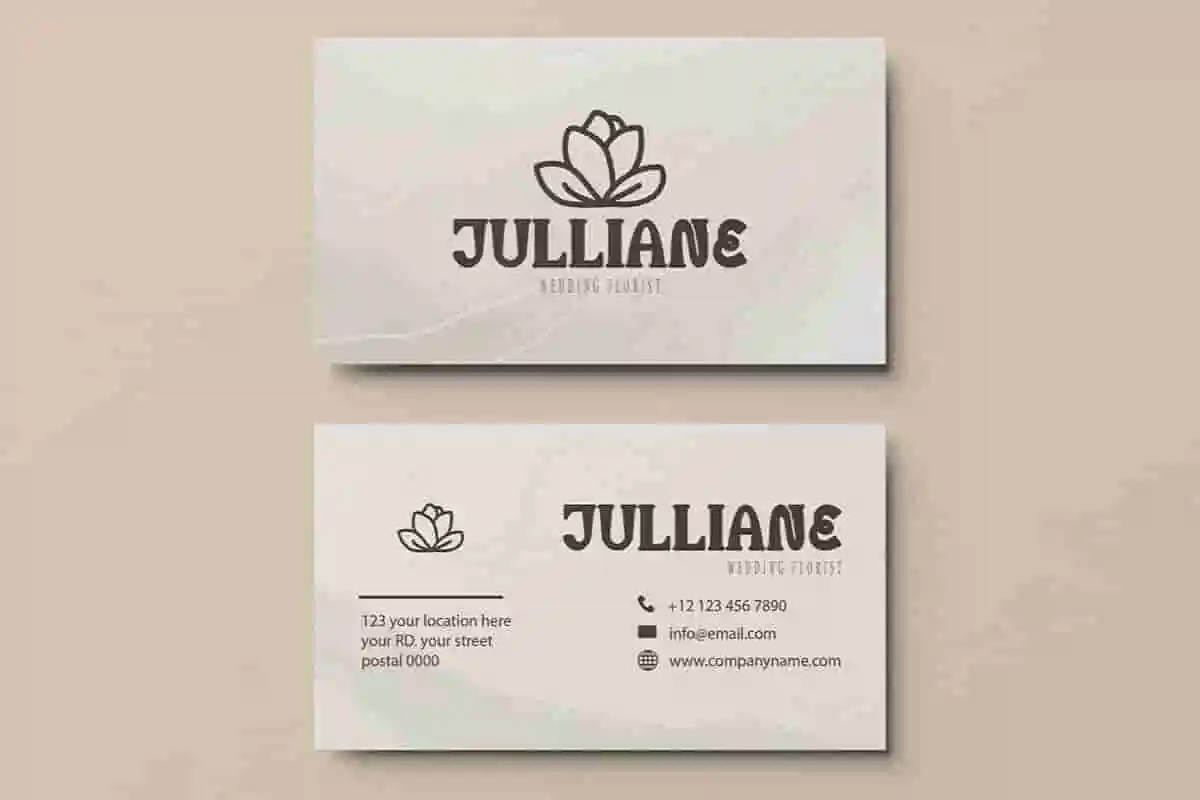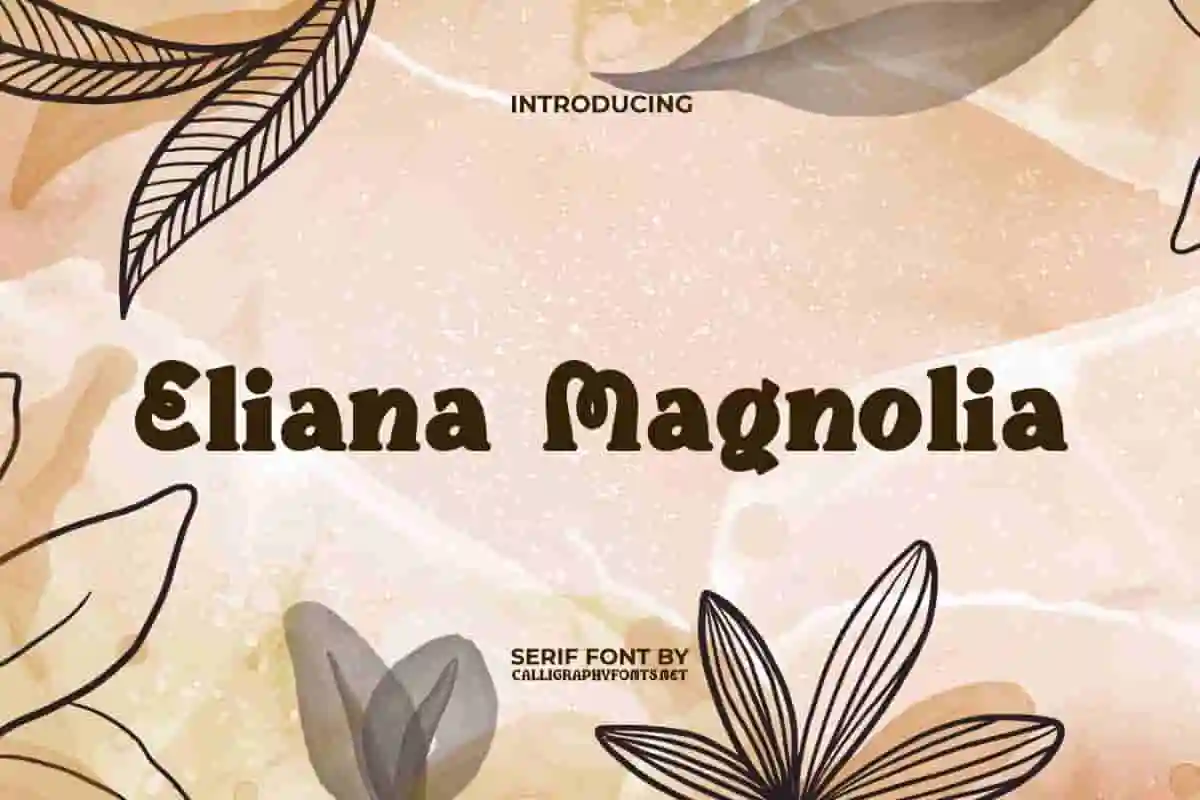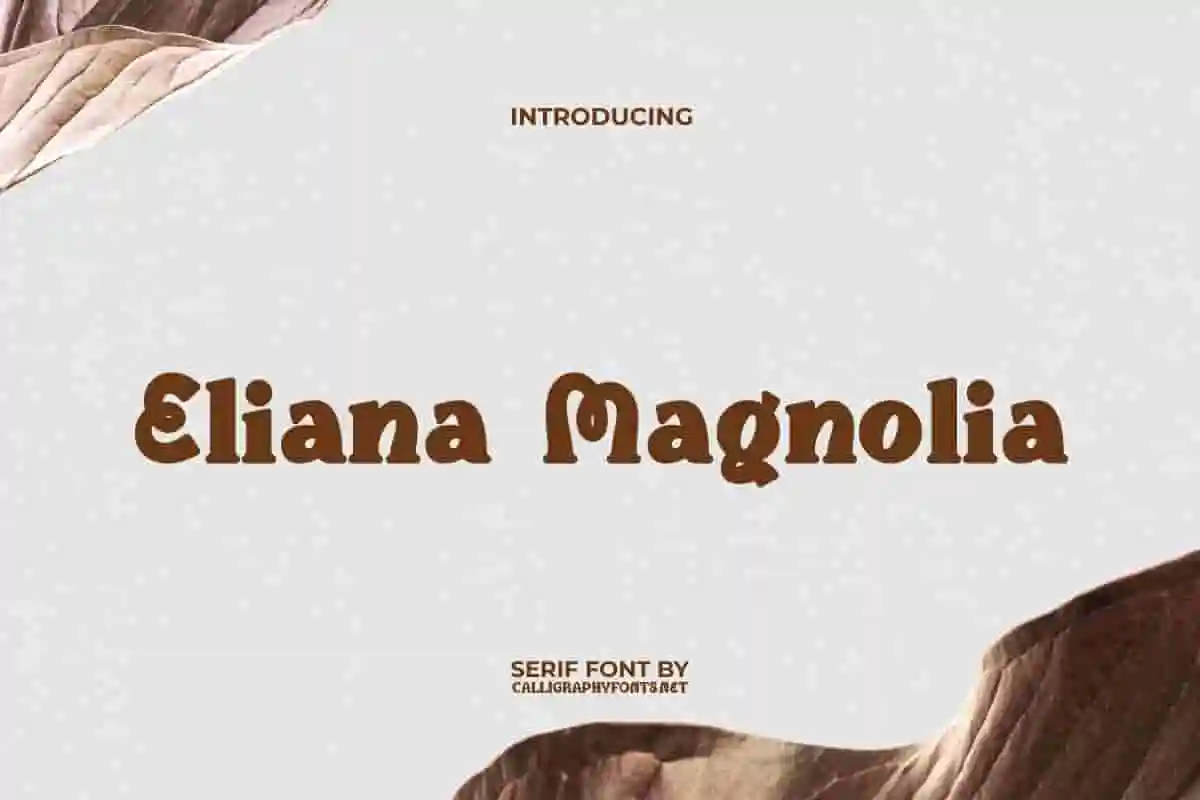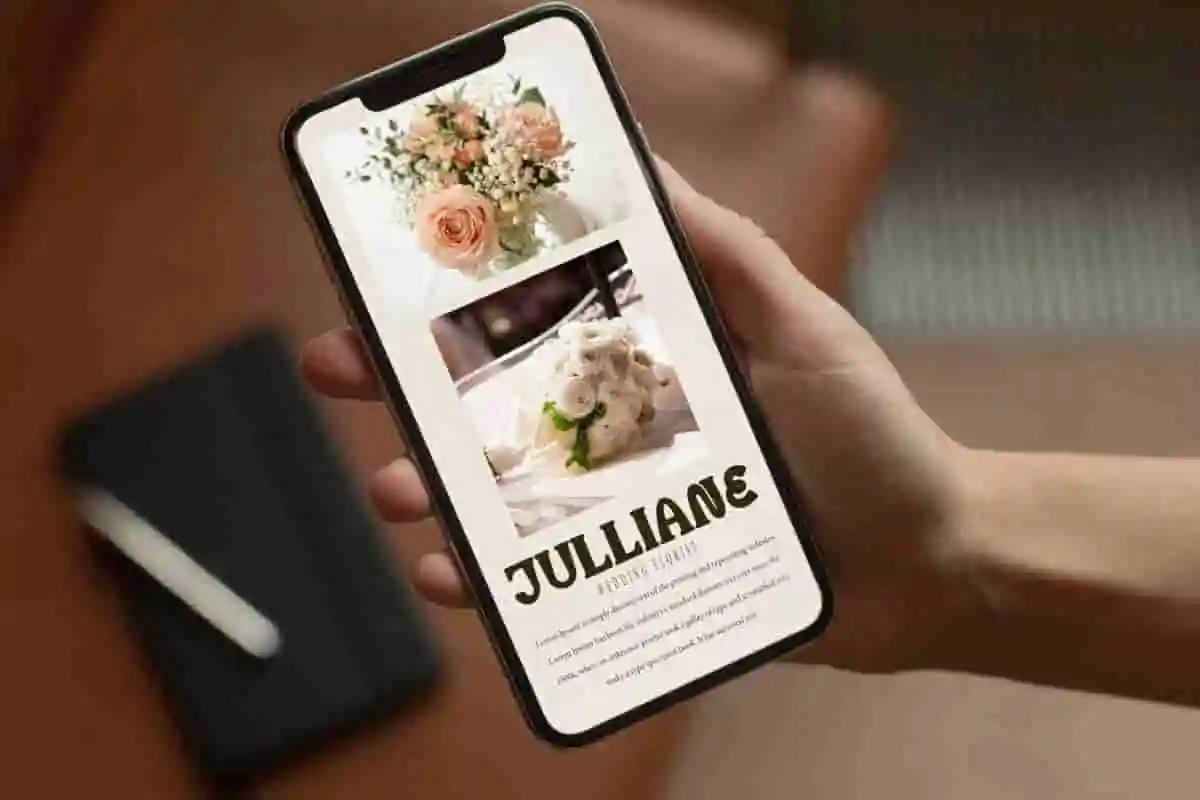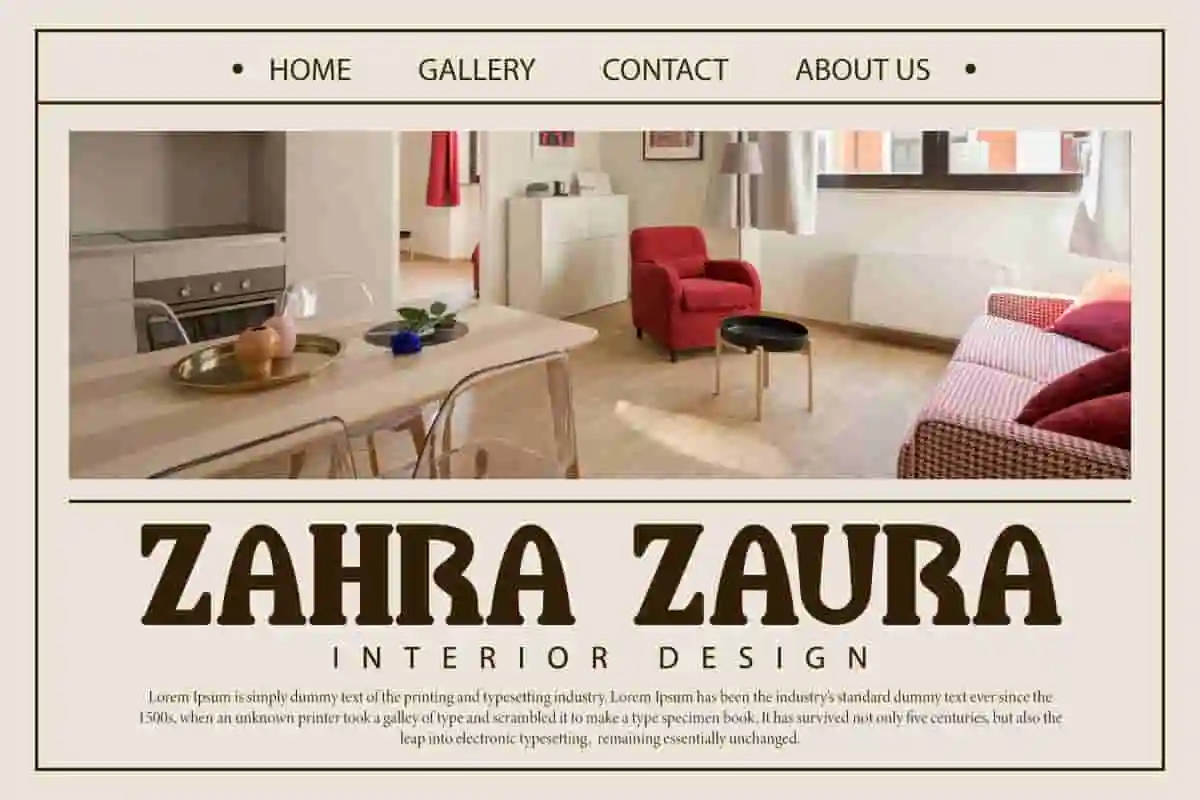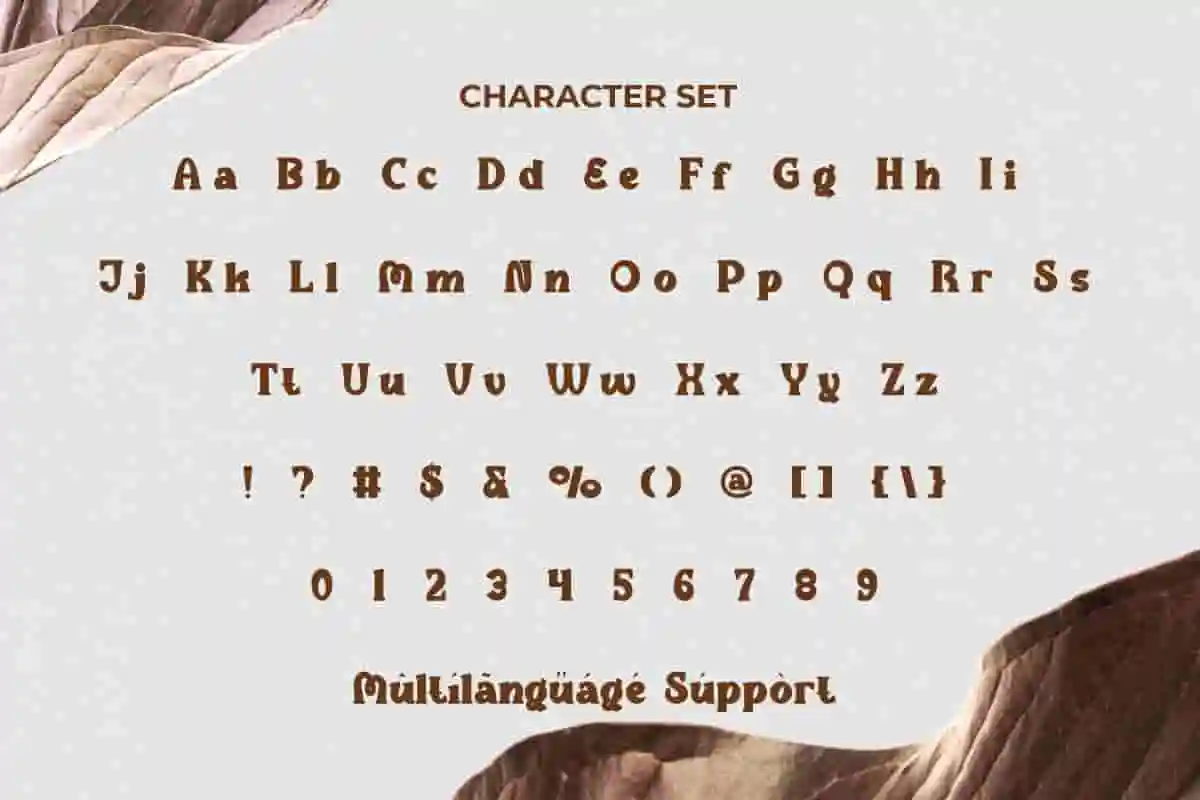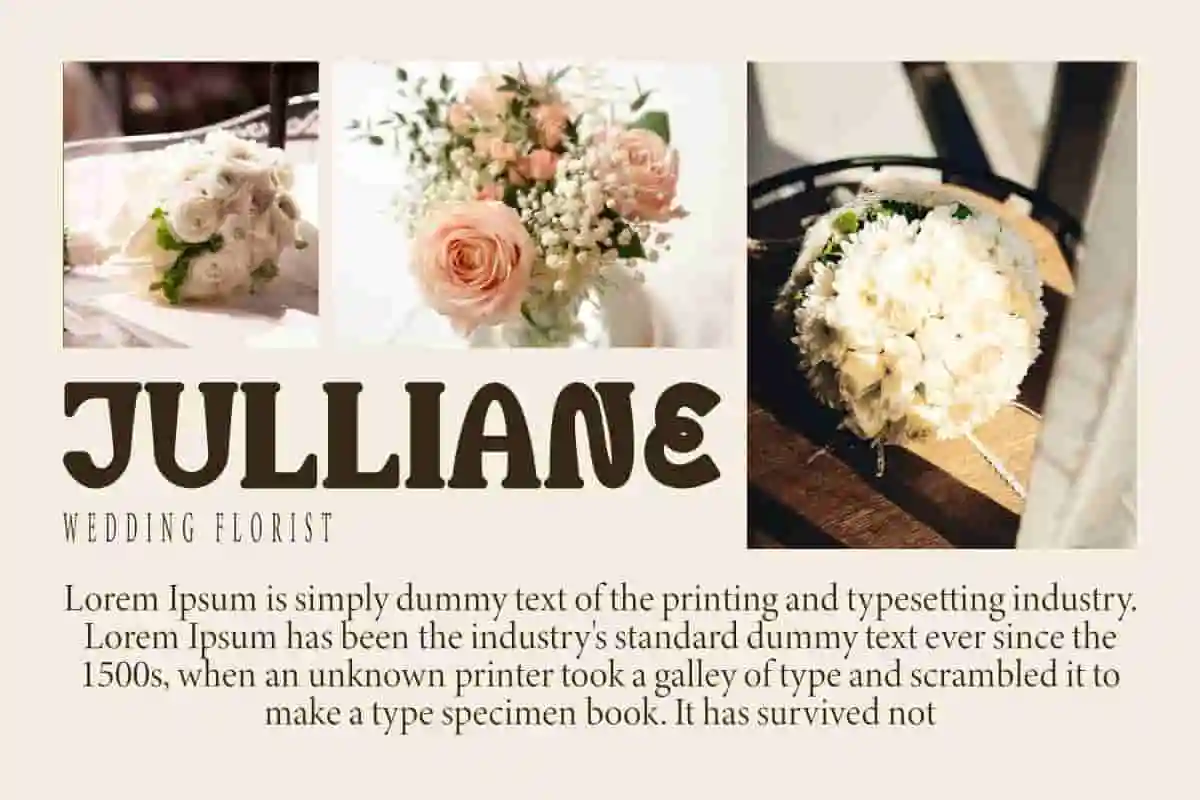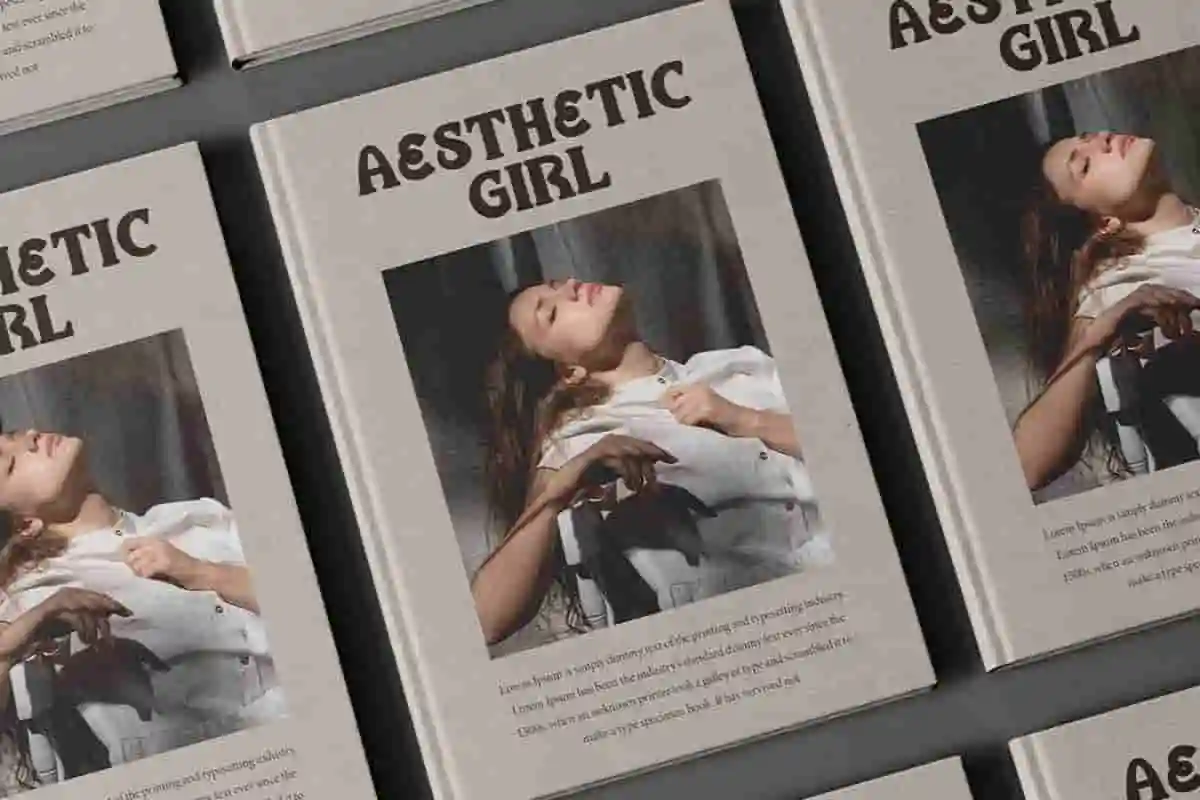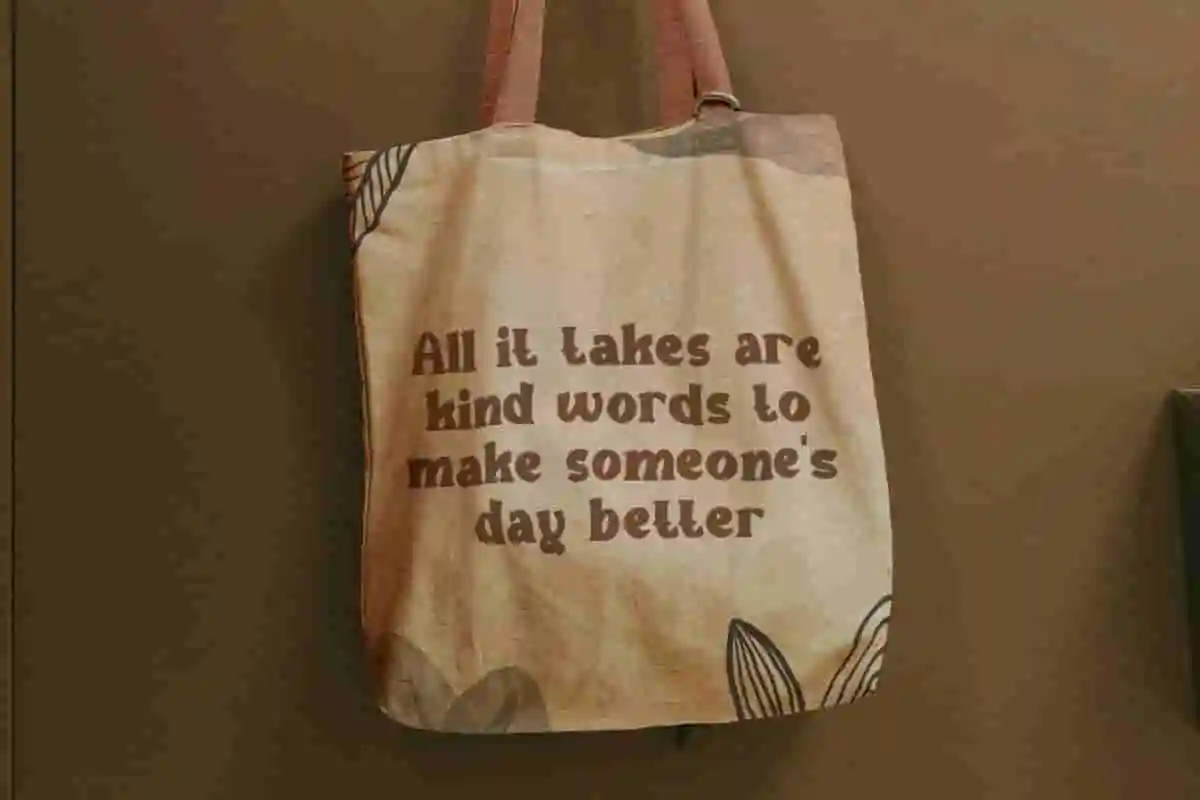
Eliana Magnolia Display Font
Eliana Magnolia Font is an elegant and modern retro serif font. It would be perfect for use in advertising, branding, florist, photography, website, wedding, title, and more!
Eliana Magnolia Font is a classic serif font as pretty as flowers. Made in an elegant retro feel, it produces the right thickness with curves as a distinctive and concise appeal in each character. Use this font for blogs, business card, card design, cover book, editorial, heading, headline, labels, logos, mockup, poster, printing, screen printing bag, stickers, template, title, website, etc.
Discover timeless beauty with Eliana Magnolia Display Font, a classy and elegant typeface made to elevate your branding, packaging, invitations, and more. With its soft curves and modern flair, Eliana Magnolia brings a luxurious touch to every design. Whether you’re working on wedding stationery, high-end branding, product labels, editorial layouts, or fashion campaigns, this font offers the perfect balance of sophistication and readability.
Introducing Eliana Magnolia Display Font, a graceful and modern serif font designed to bring refined elegance to your most stylish projects. Its clean strokes and soft curves make it a perfect choice for designs that demand class and confidence. Whether you’re designing wedding invitations, fashion branding, packaging, logos, or editorial spreads, Eliana Magnolia delivers sophistication with every letter.
Step into sophistication with Eliana Magnolia Display Font — a beautifully refined serif typeface created for elegant and modern design. With stylish curves and high-contrast strokes, this font is perfect for projects that need a graceful, premium look. Whether you’re designing wedding suites, luxury branding, high-end packaging, editorial layouts, or fashion logos, Eliana Magnolia will instantly elevate your visual style.
• Elegant serif display font
• Includes numbers
Eliana Magnolia Font is a charming and unique serif display that combines vintage charm and modern style making this typeface very impressive for anyone who needs a strong and confident serif. This would be perfect for advertising, bouquet, event organizer, florist, gardener, graphic design, home furniture, interior design, publishing, wedding, web designer, and much more.
Eliana Magnolia Font comes with a complete set of Uppercase and Lowercase Basic Characters, Numbers, Punctuation and Symbols. It is supported with multilingual characters and ready to use both on Windows machine or Mac with simple installations. It’s tested to work well in the Adobe Apps (Illustrator, Adobe InDesign, Adobe Photoshop) CorelDraw, and others. PUA Encode Characters means you can access all the characters easily – Fully accessible without additional design software.